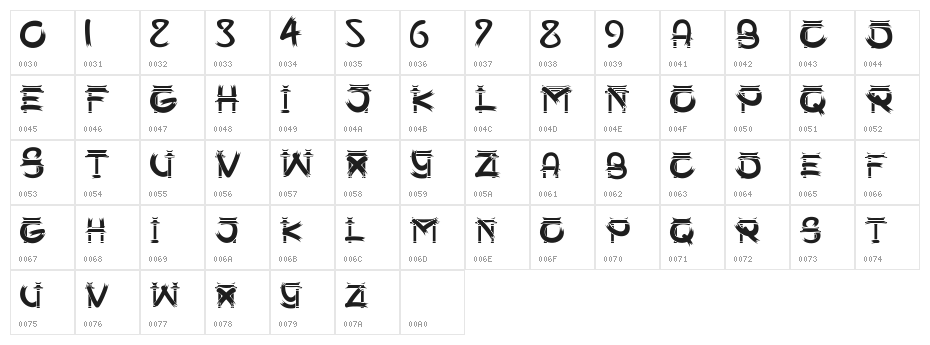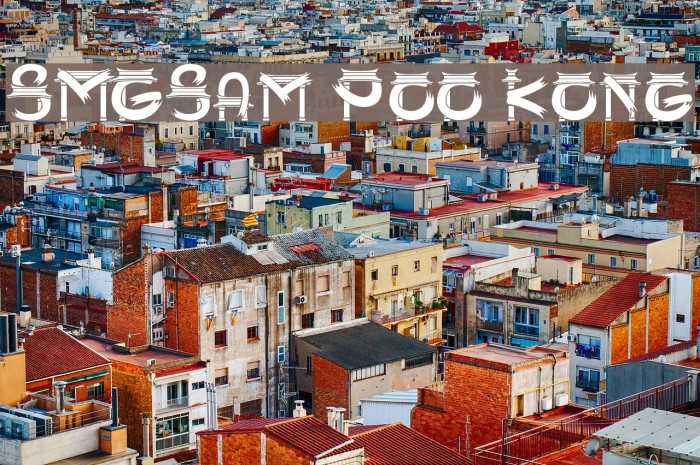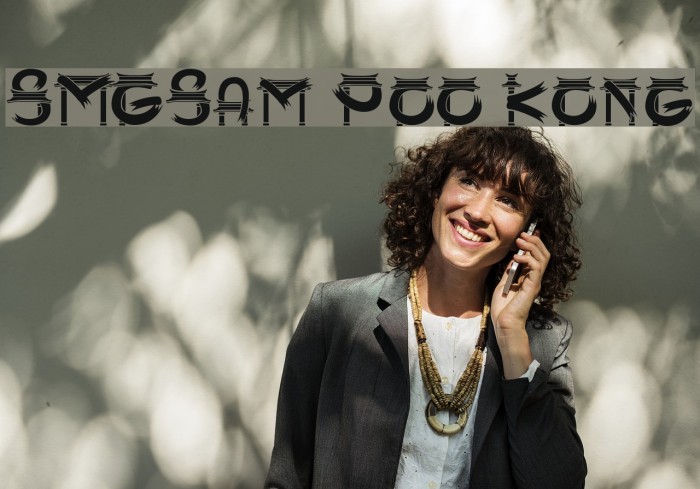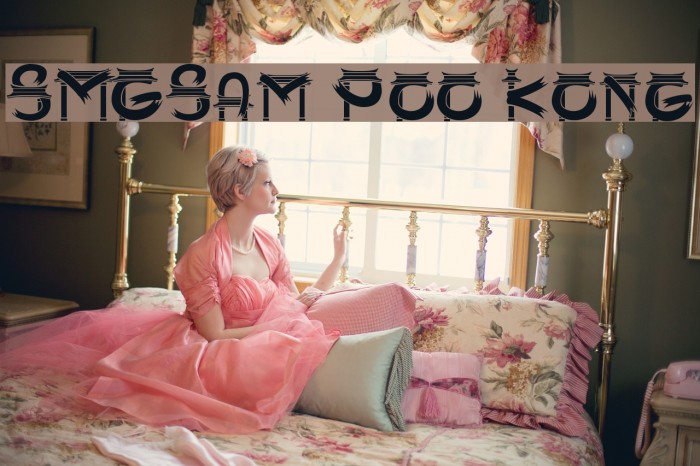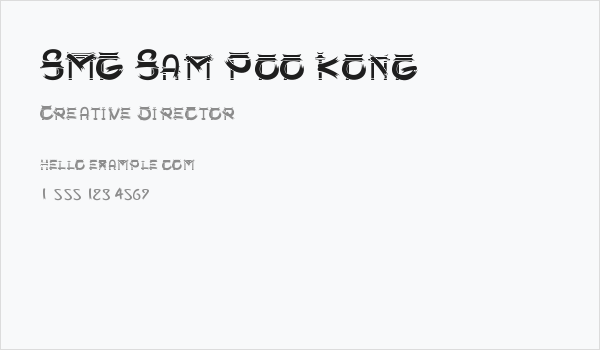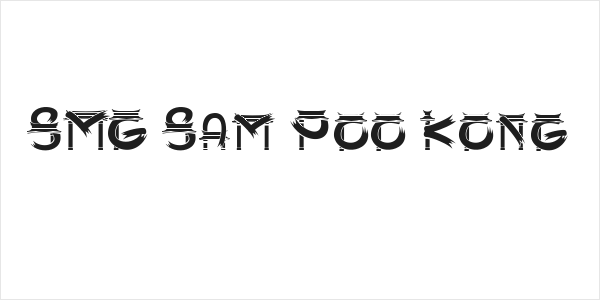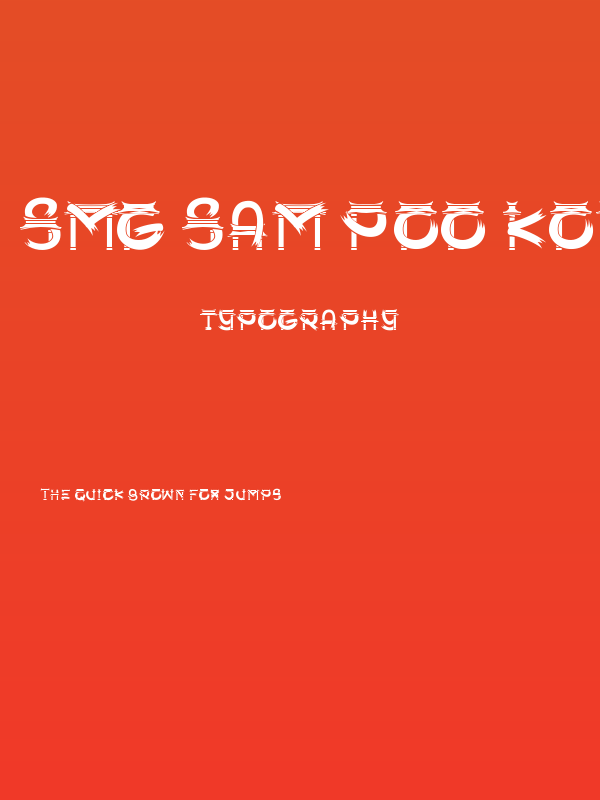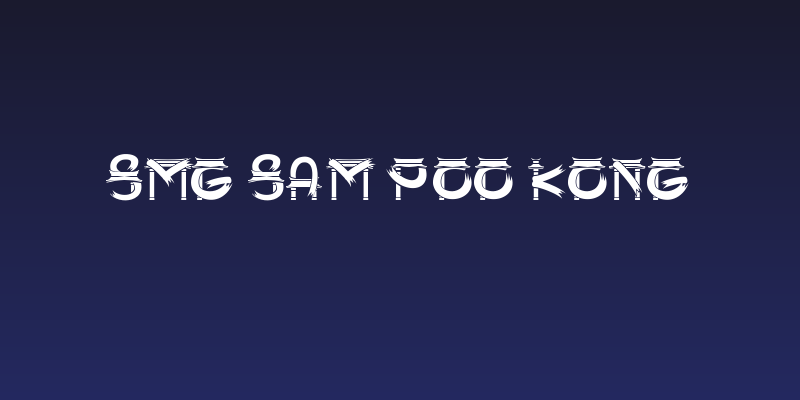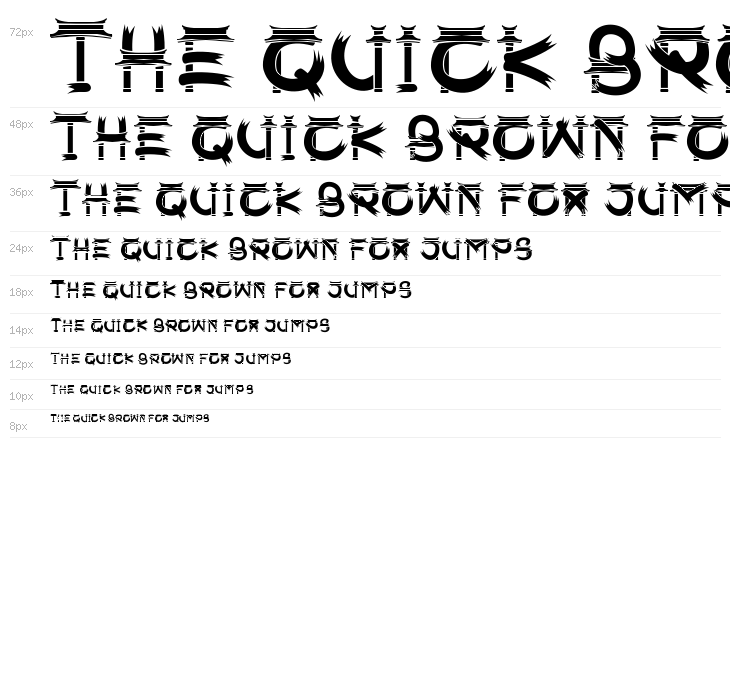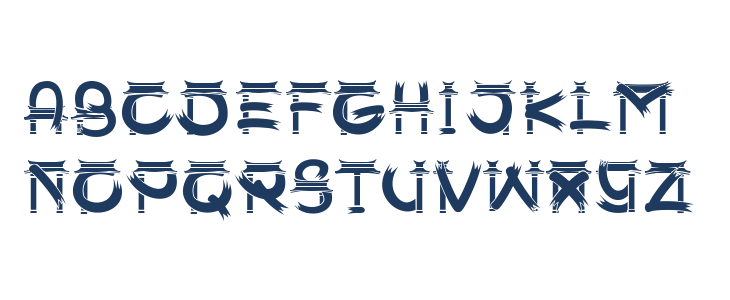
SMG_Sam Poo Kong Font
SMG_Sam Poo Kong Description
This font features a bold and dynamic design with sharp, angular strokes and a distinct tribal or cultural influence. The characters are adorned with unique, decorative elements that give them a sense of movement and energy. The uppercase and lowercase letters maintain a consistent style, with exaggerated serifs and intricate detailing that make each character stand out. The numbers follow the same design principles, ensuring a cohesive look across all elements. This font's striking appearance makes it ideal for projects that require a strong visual impact.
| Proposed Projects | Ideal for cultural event posters, music album covers, or branding that requires a bold, artistic touch. |